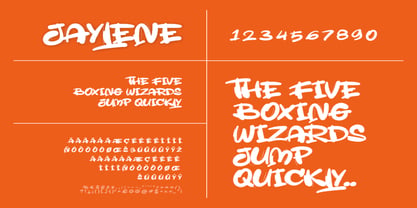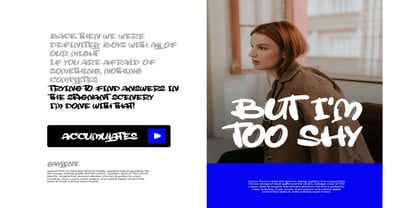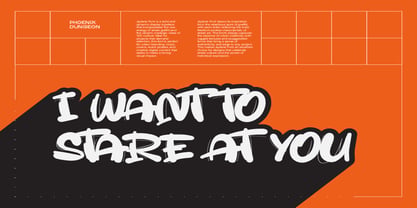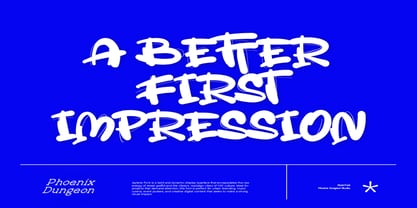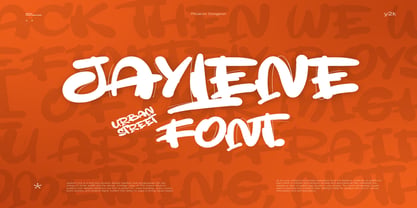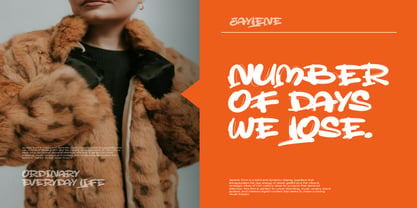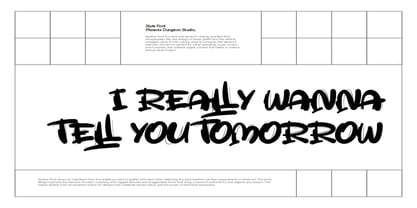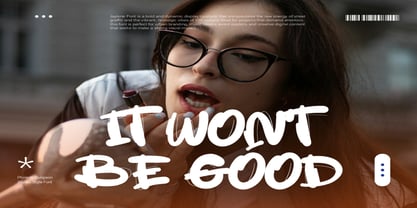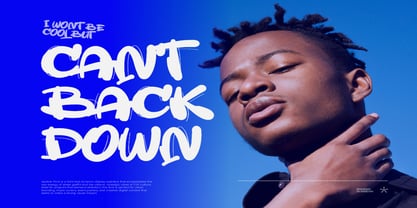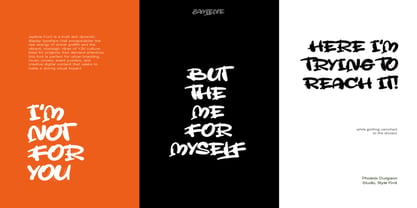
Jaylene
by Phoenix Group
The Jaylene Font Family was designed by Alif Naufal Muzakki and published by Phoenix Group. Jaylene contains 1 styles. More about this family
Jaylene is a bold, urban graffiti font inspired by Y2K vibes and street culture. With dynamic strokes and expressive energy, it’s perfect for music covers, event posters, and bold branding. Designed to mimic street tags, Jaylene delivers a raw, authentic feel. Each letter bursts with attitude, making it ideal for modern, edgy visuals that demand attention and creative flair.
Designers: Alif Naufal Muzakki
Current Foundry: Phoenix Group